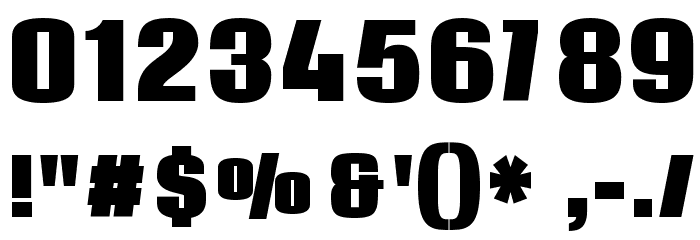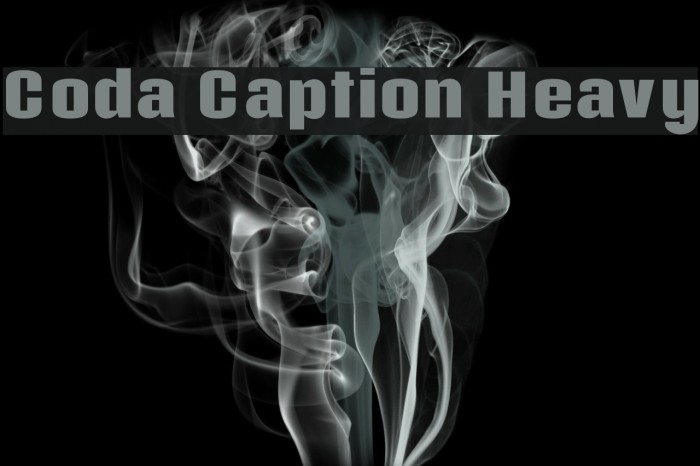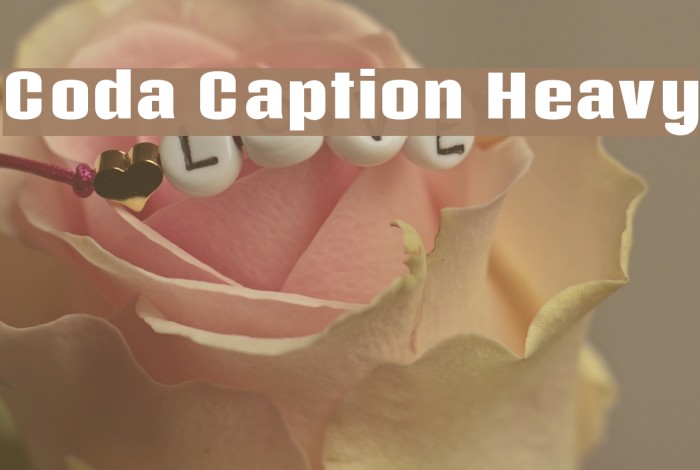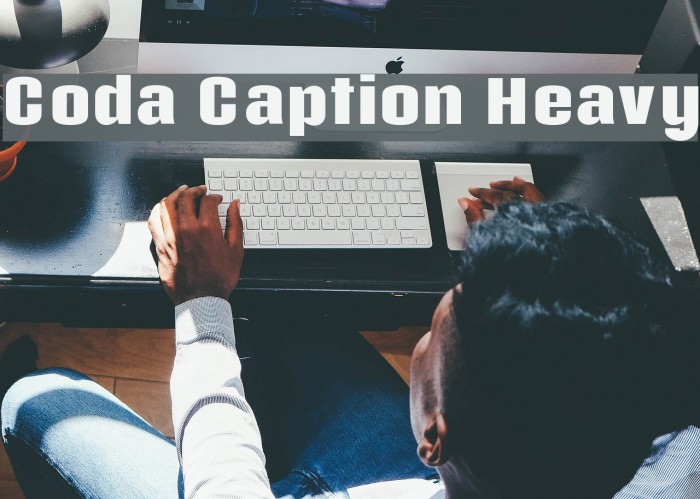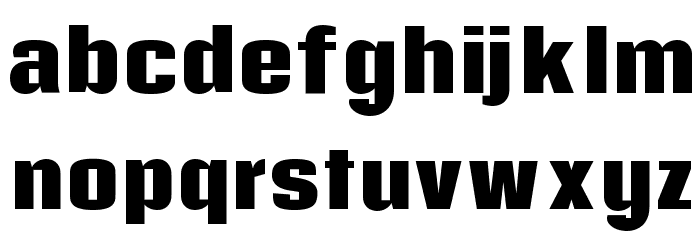
Coda Caption Heavy Font
Coda Caption Heavy Description
This font is a bold and impactful typeface with a strong presence. The characters are uniformly thick, providing a sense of stability and confidence. The uppercase letters are tall and commanding, while the lowercase letters maintain a consistent weight, ensuring readability. The numbers are robust and clear, making them suitable for attention-grabbing displays. Special characters are designed with the same boldness, ensuring they stand out. This typeface is ideal for projects that require a strong visual impact, such as headlines, posters, and branding materials.
A bold, impactful typeface with strong, uniform characters from Uncategorized fonts.
- Proposed Projects: Ideal for headlines, posters, branding, and any project requiring strong visual impact.